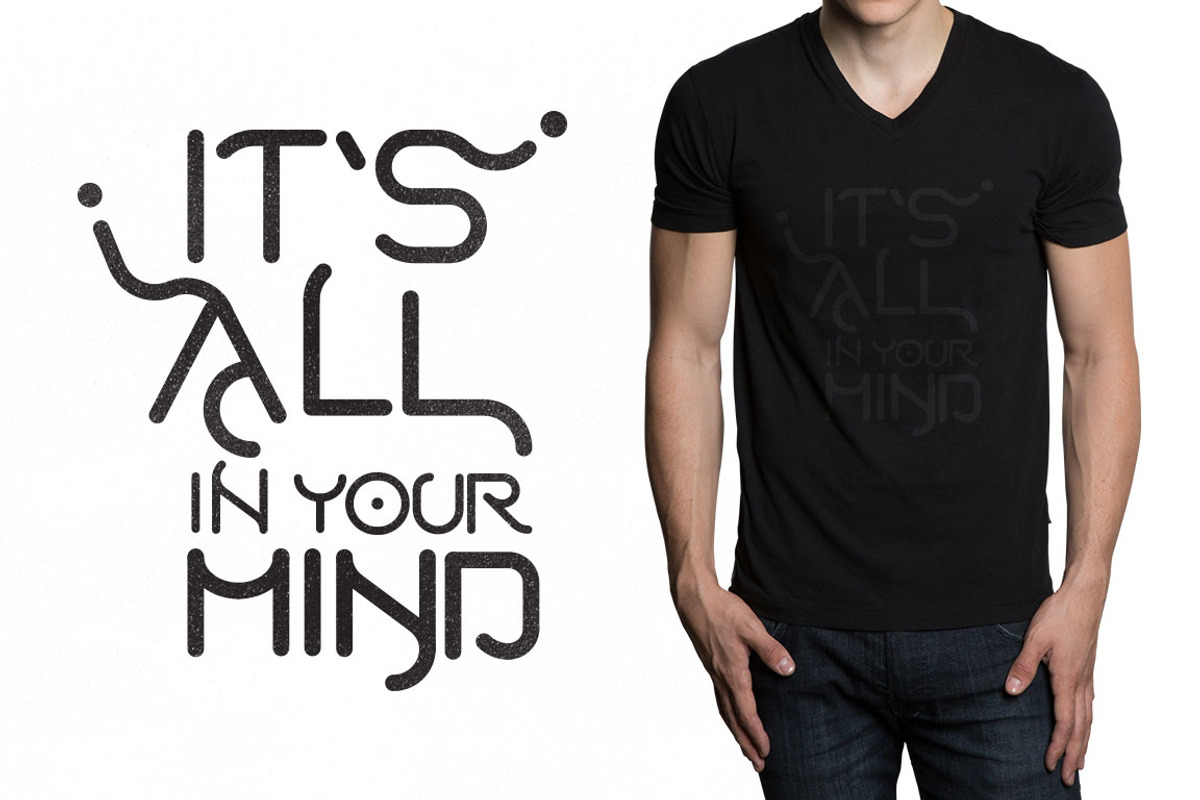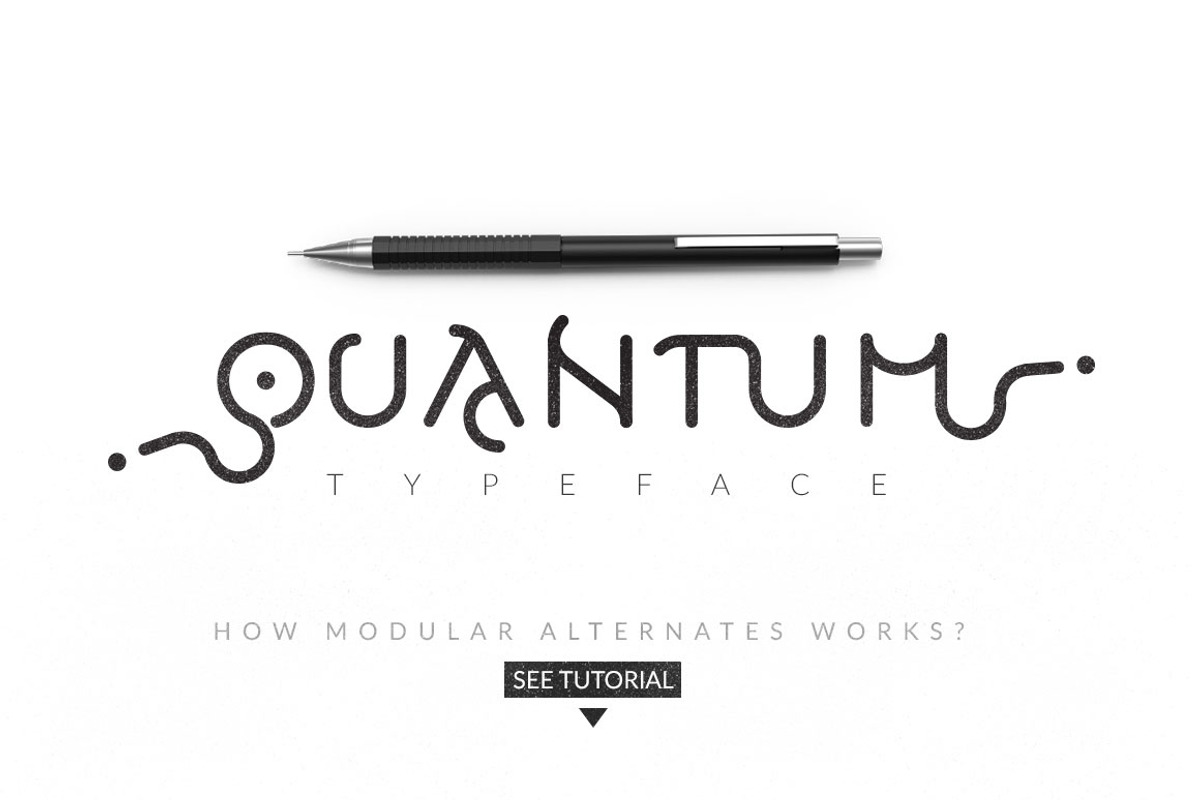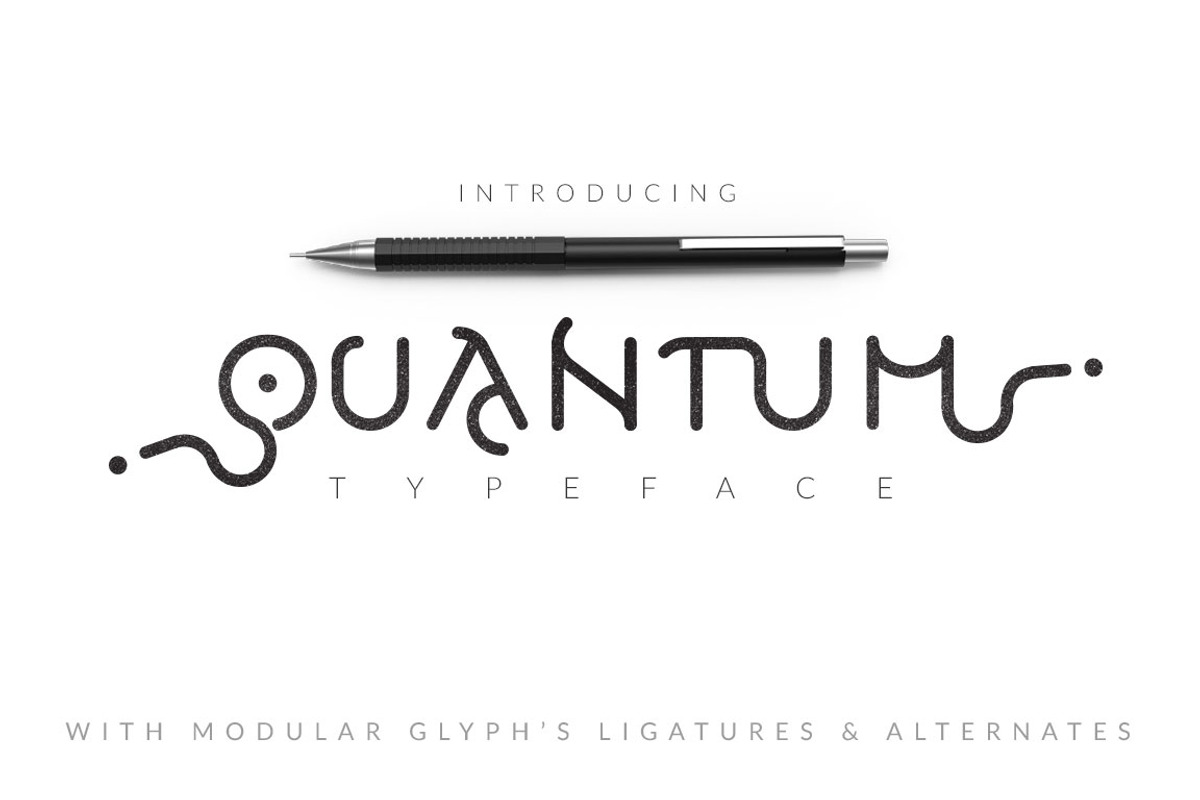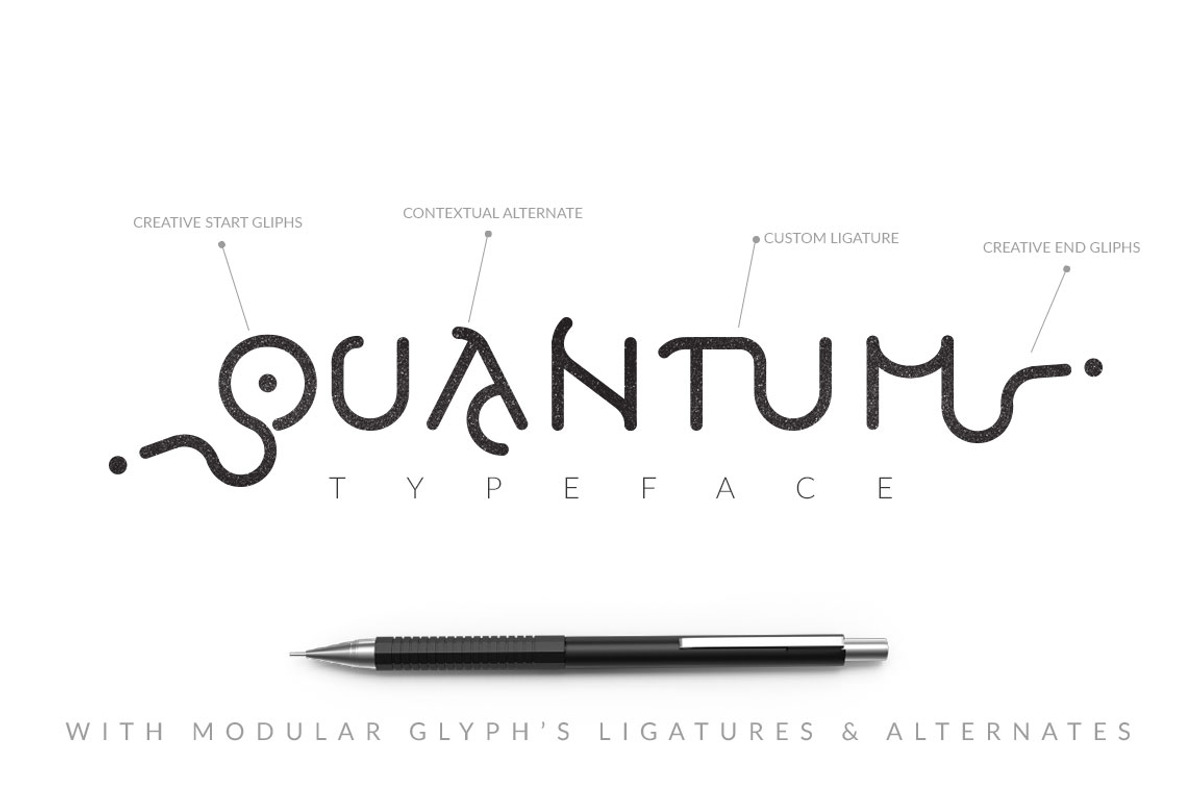
Quantum Typeface
Quantum Typeface by DesignSomething is a font selected for branding, posters, packaging, typography.
- Introducing Quantum typeface with modular glyph's ligatures and contextual alternates.
- See the second preview to learn how modular alternates works.
Why Quantum Typeface is worth a look
Quantum Typeface by DesignSomething fits naturally into Branding, posters, packaging, typography.